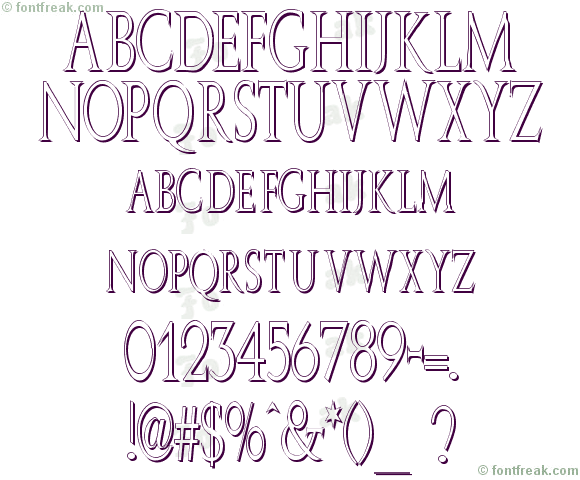
JW Brass
About JW Brass
The JW Brass font by Star Retrieval Systems is a striking display typeface that stands out for its unique blend of elegance and boldness. This shareware font features a decorative style characterized by its slender stroke weight and high contrast, lending an air of sophistication to any design. The letters are intricately designed, with graceful curves and sharp angles that create a visually captivating experience. The spacing is thoughtfully crafted to ensure readability while maintaining a stylish appearance, making it suitable for a variety of applications.
JW Brass is ideal for use in high-impact projects such as wedding invitations, where its elegant flair can enhance the overall aesthetic. It also shines on movie posters, adding a touch of drama that draws viewers in. Restaurant menus can benefit from its refined appearance, helping to create an inviting atmosphere that reflects the culinary experience. Graphic designers will find it useful for branding projects, where a memorable and distinctive font can set a brand apart. Additionally, content creators can leverage JW Brass in promotional materials, blogs, or social media graphics to attract attention and engage their audience.
Targeting graphic designers, small business owners, and content creators alike, JW Brass offers versatility and charm. Its unique design elements make it a valuable asset for anyone looking to elevate their visual content.